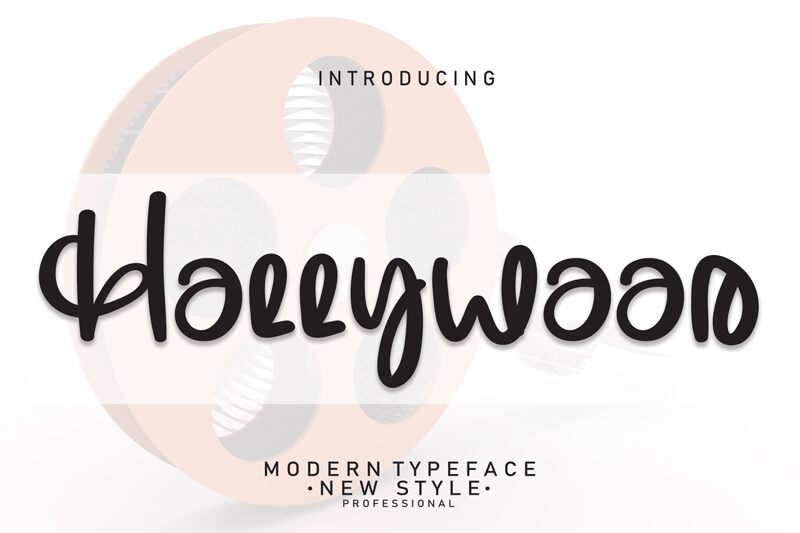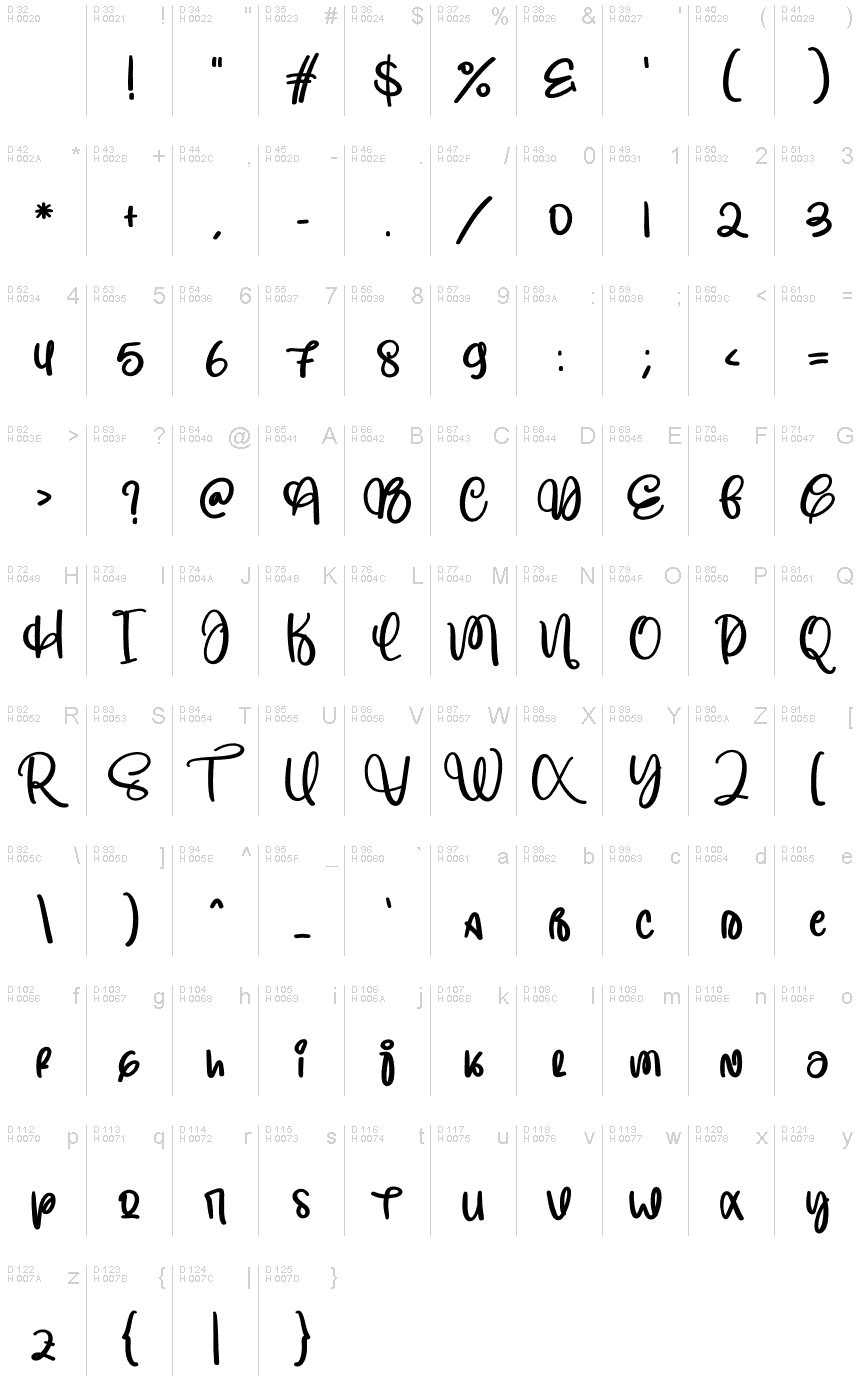
Hollywood
Hollywood, a modern handwritten font by Scratchones, adds an elegant touch to any project.
With its semi-light weight, this font is perfect for creating invitations, greeting cards, and wedding stationery that exude sophistication and charm. Its flowing curves and stylish flair make it equally suitable for fashion blogs or beauty magazines, adding a touch of glamour to every page.
Hollywood's versatility shines through in branding projects as well, bringing a contemporary yet timeless feel to logos and packaging designs. Let your creativity shine with Hollywood font!
The latest style letters are perfect for wall displays, wedding invitations, social media post logos, advertisements, product packaging, product designs, labels, photography, watermarks, invitations, stationery, and any project that requires taste handwriting.
With its semi-light weight, this font is perfect for creating invitations, greeting cards, and wedding stationery that exude sophistication and charm. Its flowing curves and stylish flair make it equally suitable for fashion blogs or beauty magazines, adding a touch of glamour to every page.
Hollywood's versatility shines through in branding projects as well, bringing a contemporary yet timeless feel to logos and packaging designs. Let your creativity shine with Hollywood font!
The latest style letters are perfect for wall displays, wedding invitations, social media post logos, advertisements, product packaging, product designs, labels, photography, watermarks, invitations, stationery, and any project that requires taste handwriting.